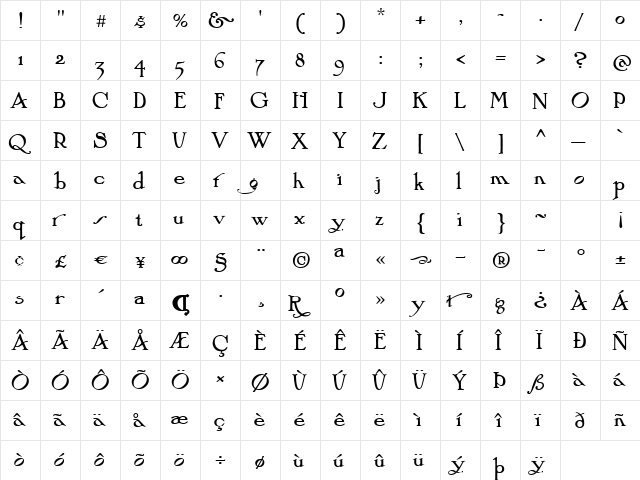
P22 Arts and Crafts Hunter Regular
| Designer | James Grieshaber / Dard Hunter |
Design Context for P22 Arts and Crafts Hunter Typeface
P22 Arts and Crafts Hunter is a composed and adaptable typeface that performs quietly and consistently across a wide range of design contexts.